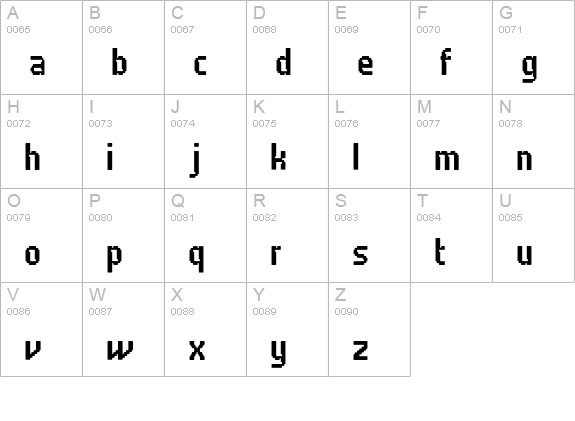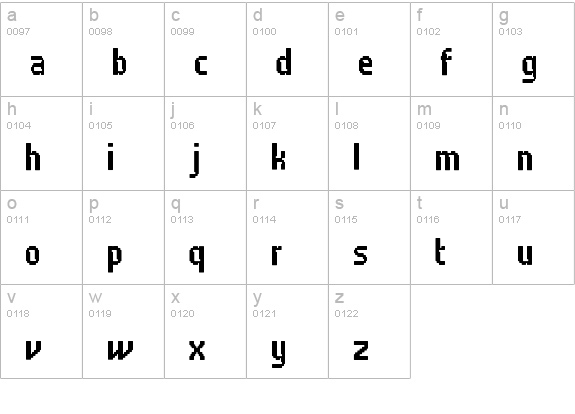
Fodor Font Details
Fodor font is a beautifully crafted typeface that exudes elegance and sophistication. With its clean lines and modern appeal, Fodor is perfect for a wide range of design projects, from branding to editorial design. Its timeless style makes it versatile and suitable for various applications. One of the best things about Fodor font is that it is available for free download at FontsMarket.com. This means that you can easily access this stunning font and use it in your projects without any cost. Whether you are a professional designer or a hobbyist, Fodor font is a valuable addition to your font library. Experience the beauty and versatility of Fodor font today by downloading it for free at FontsMarket.com. Elevate your designs with this elegant and modern typeface that is sure to make a statement.